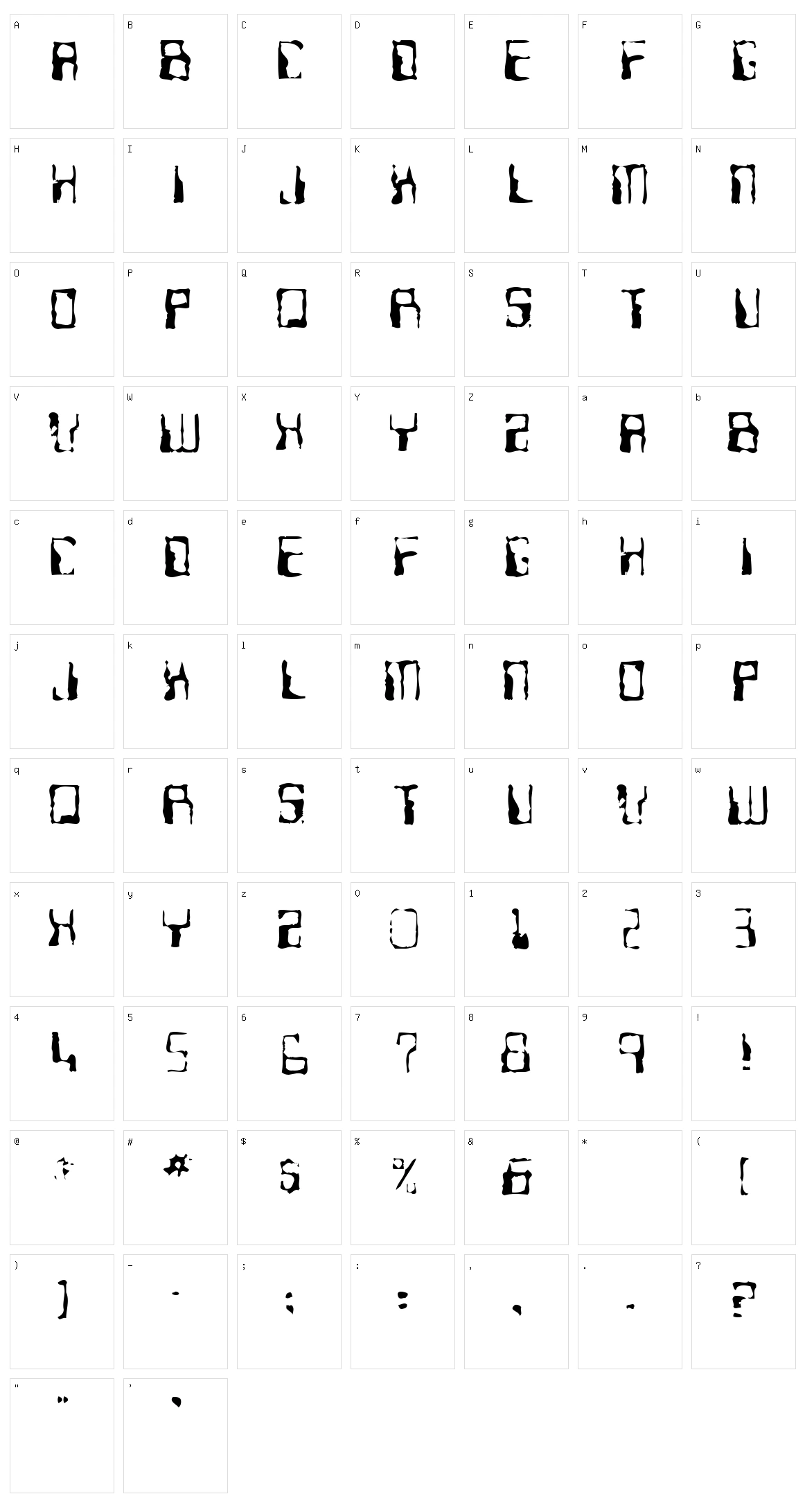
The free font Ninteen 77 is carefully designed by Dave Kellam, showcasing a thoughtful balance of creativity and usability and falls under the Destroy font style. When you download the ZIP file, it contains only 14.33 KB of font files, making it lightweight and quick to download. Please review the license details below to understand permitted usage and distribution rights. If license information is not available, we recommend using this font for personal projects only or contacting the author directly for commercial usage permissions.
All fonts were created between 1998 and 2000 by Dave Kellam and/or Brian Stuparyk using a collection of software including Paint, Photoshop, Streamline, Illustrator and Fontographer.